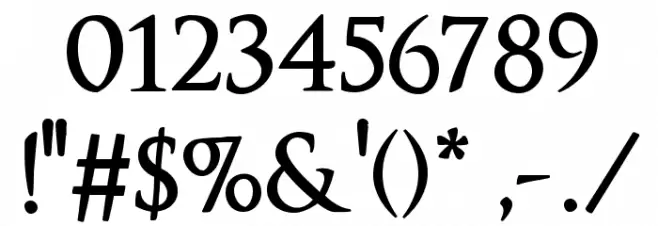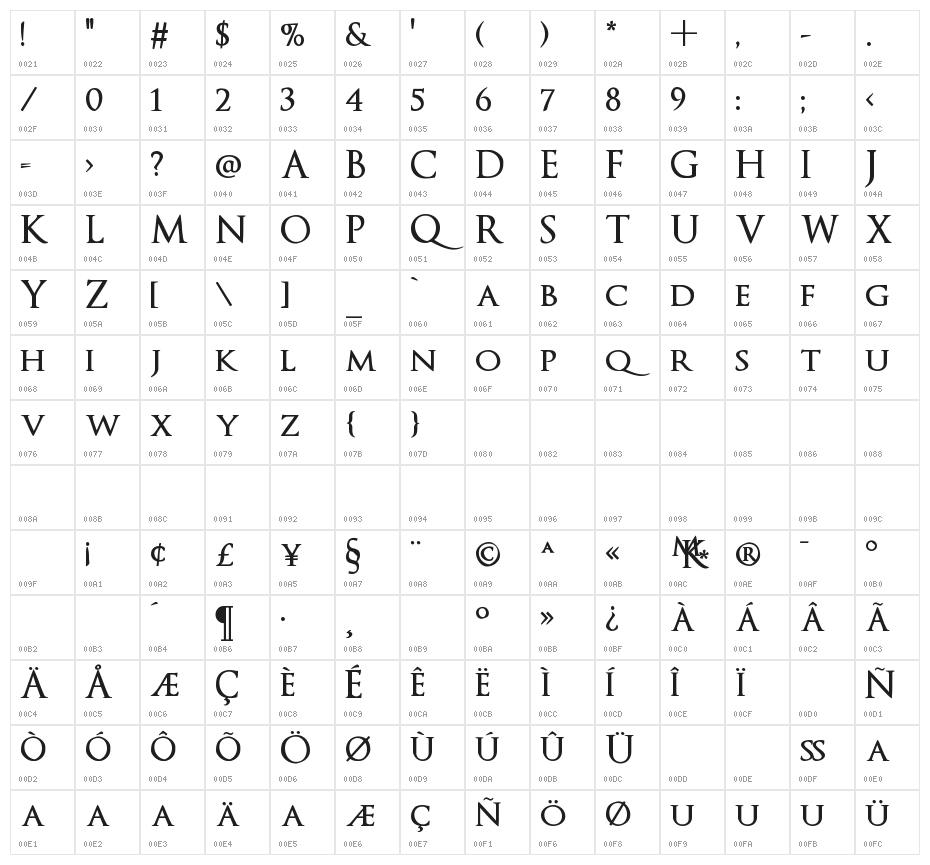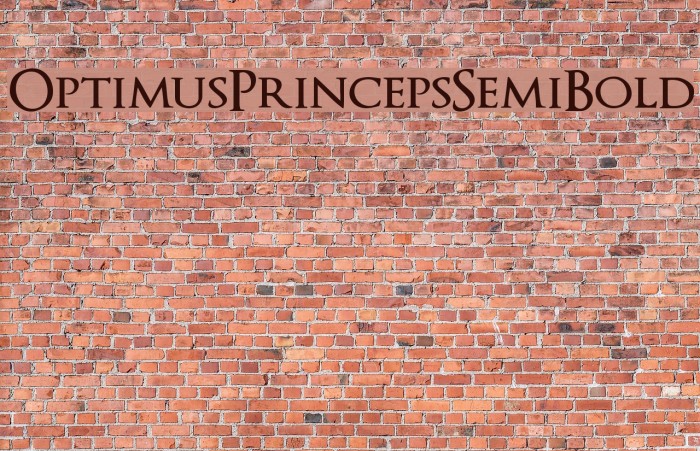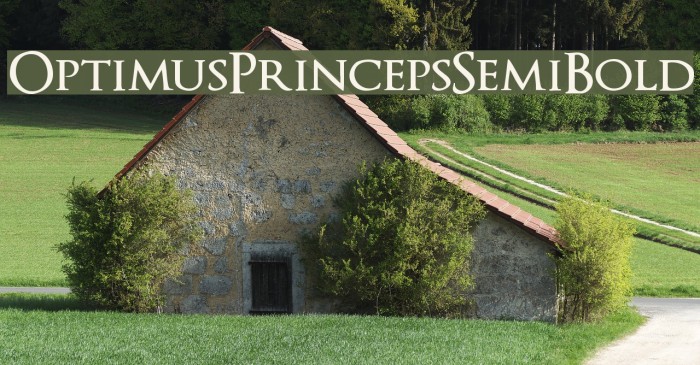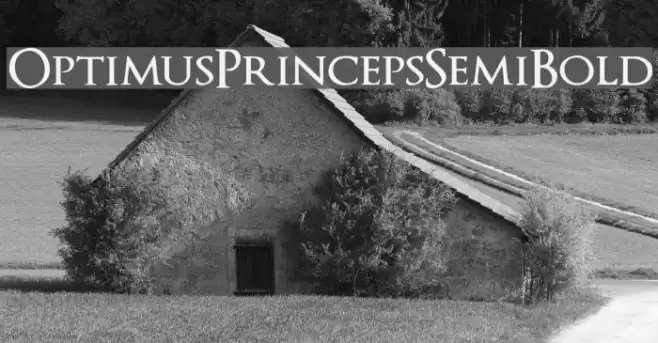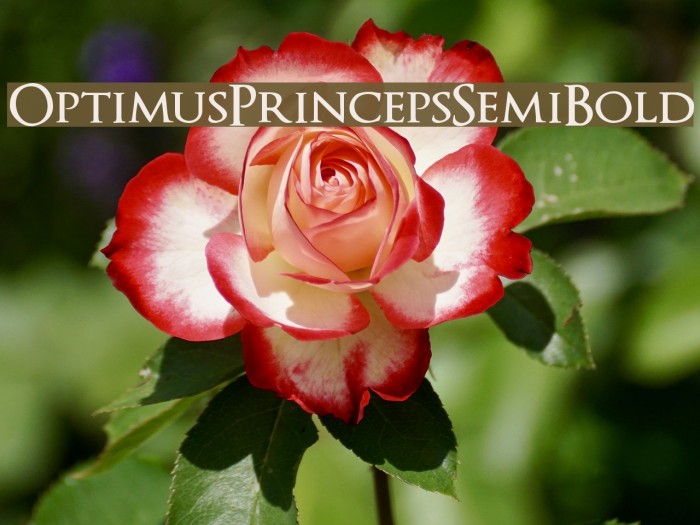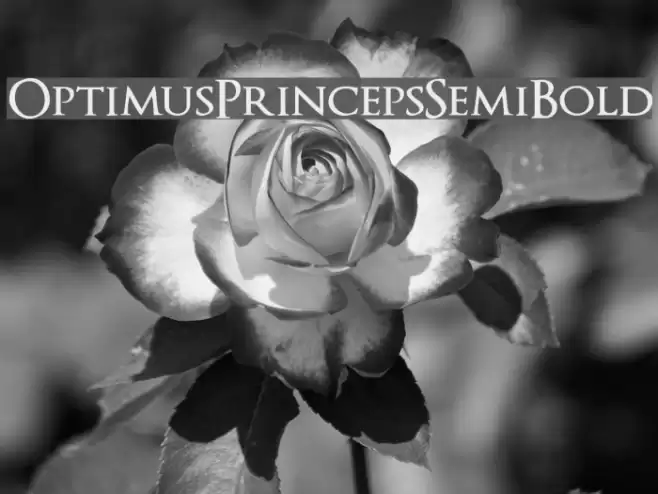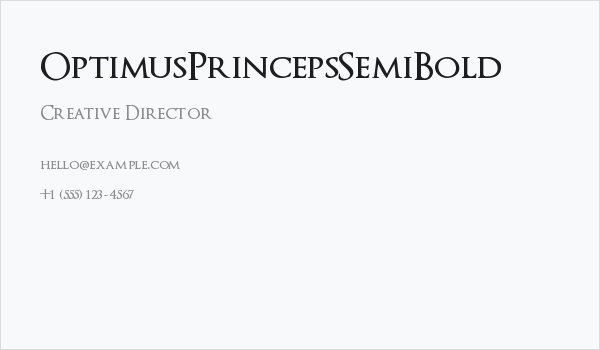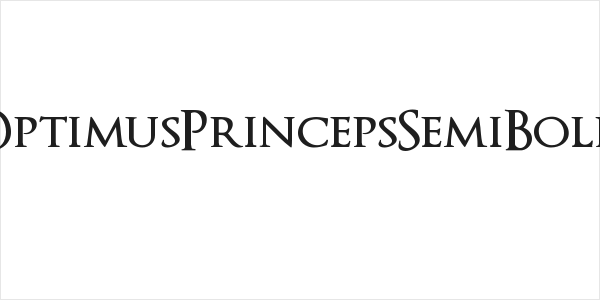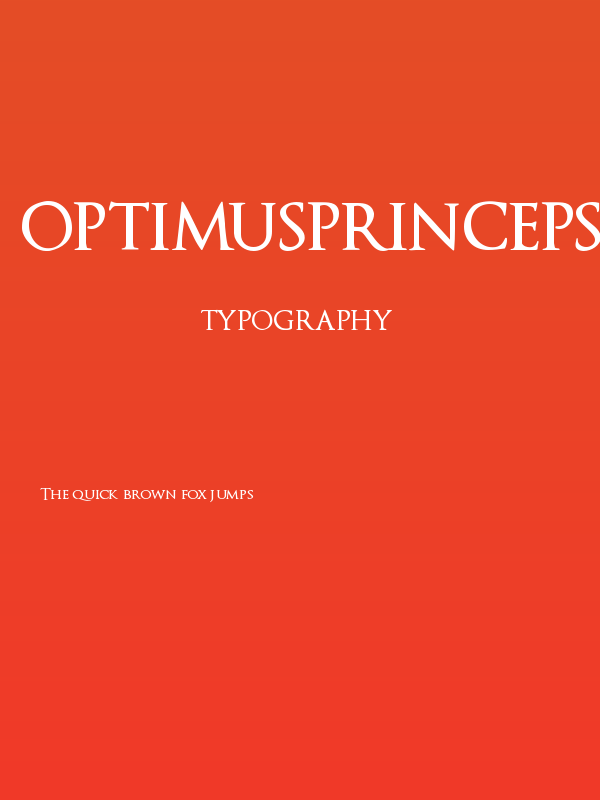
OptimusPrincepsSemiBold Font
OptimusPrincepsSemiBold Description
This font features a classic serif style with elegant, sweeping curves and a semi-bold weight that adds a touch of authority and sophistication. The uppercase letters are particularly striking, with a traditional Roman influence that is both timeless and versatile. The lowercase letters maintain a consistent style, ensuring readability while retaining the font's distinctive character. Numbers are clear and well-proportioned, making them suitable for a variety of uses. Special characters are thoughtfully designed to complement the overall aesthetic, providing a cohesive look across all text elements.
| Proposed Projects | Ideal for formal invitations, book covers, historical documents, and branding that requires a touch of elegance. |